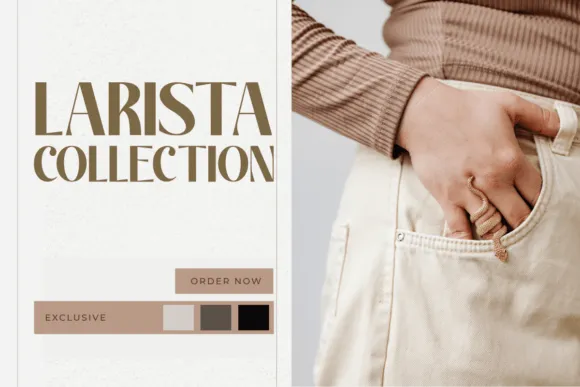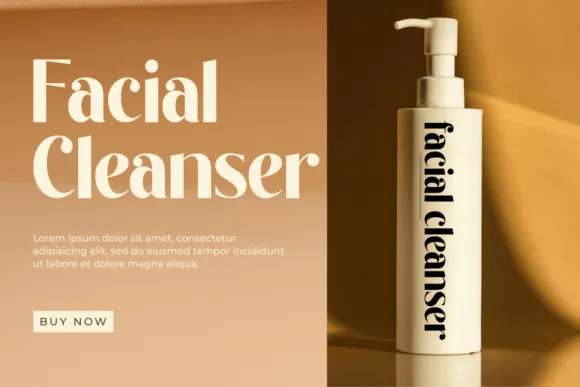
Disclosing Aubriel Font, a typeface organized to convey perfect class and clarity, turning into the core of your plan tries.
Its impeccable strokes and fit aspects fit consistently across different purposes – from brand characters to articles, from computerized connection points to signage.
The pared-down excellence of Aubriel is an encapsulation of rich straightforwardness, introducing ideal meaningfulness close by a contemporary quintessence, turning into the go-to for fashioners in mission of a cleaned impression.
Whether conveyed for effective headers or vivid body content, Aubriel Font guarantees your voice reverberations with windy refinement.